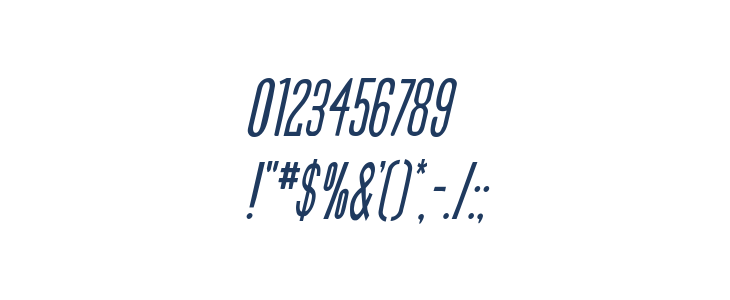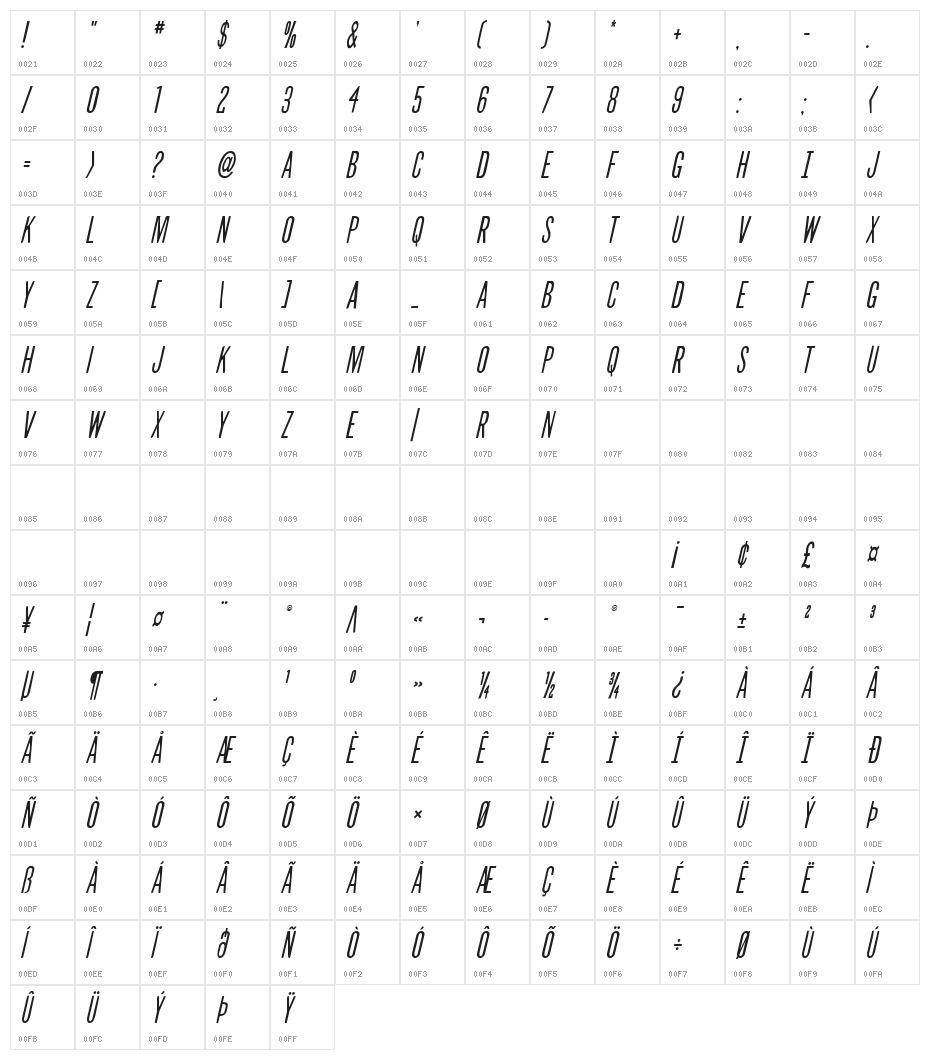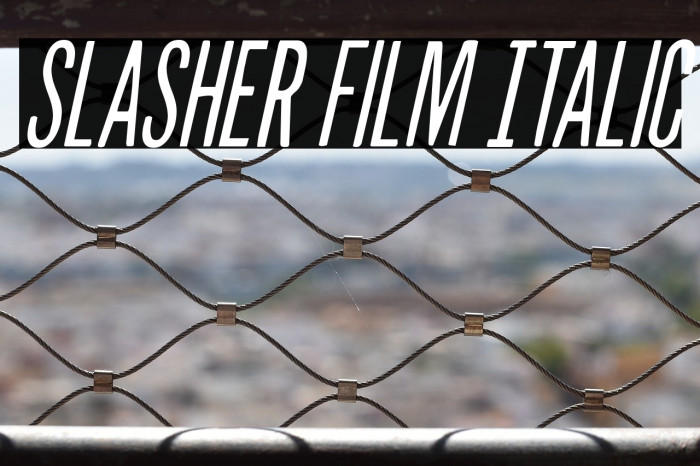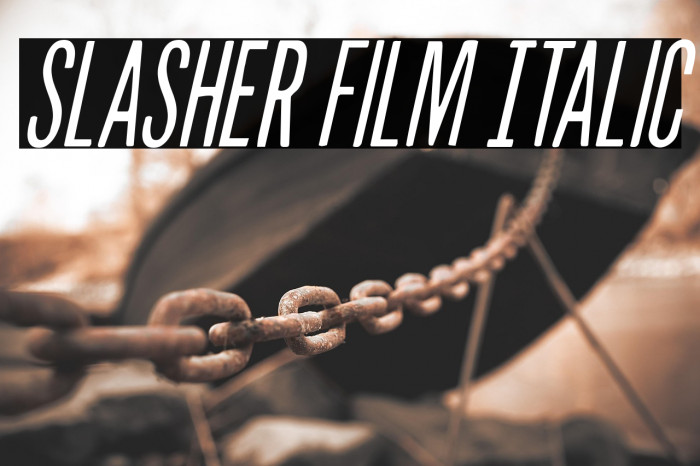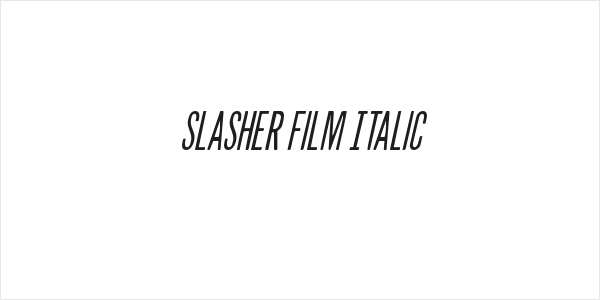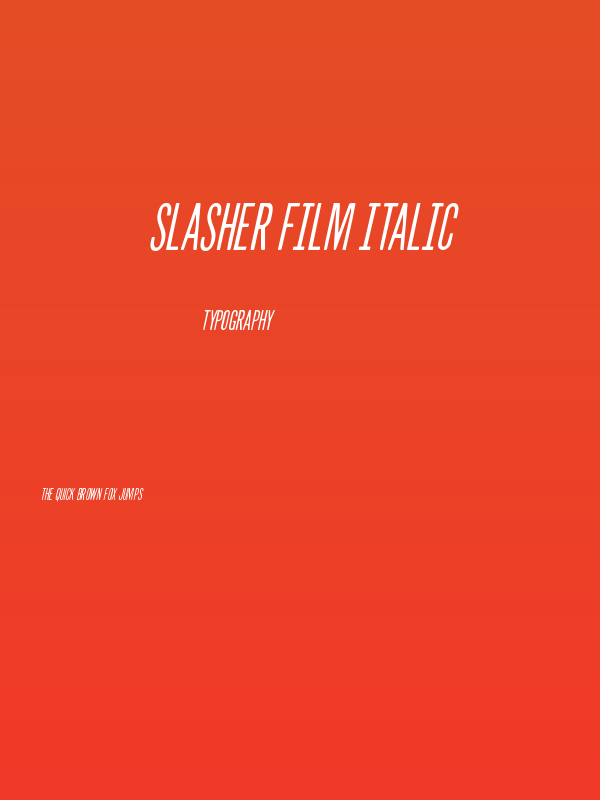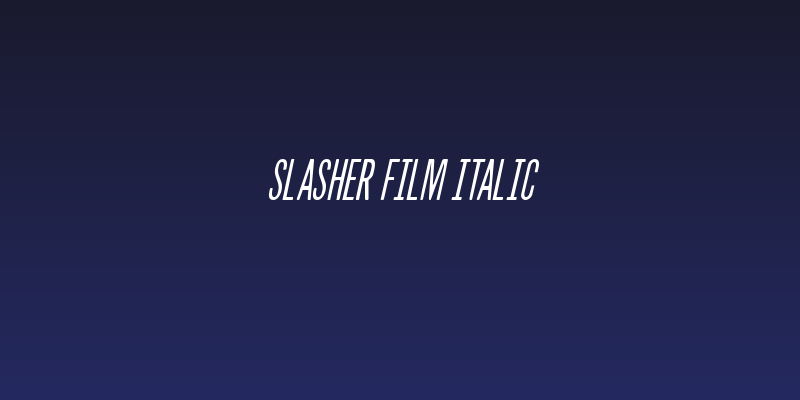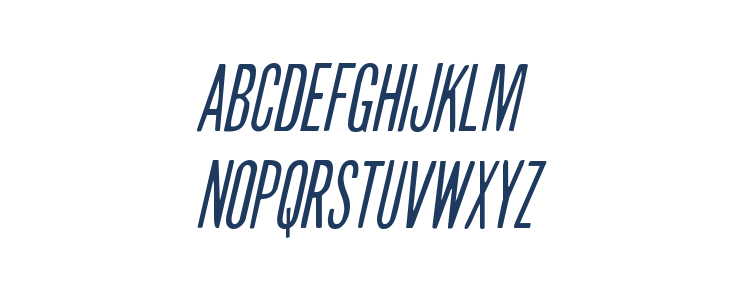
Slasher Film Italic Font
Slasher Film Italic Description
This font features a dynamic and edgy style with a distinct italic slant, giving it a sense of motion and urgency. The characters are elongated and narrow, contributing to a sleek and modern appearance. The strokes are consistent in thickness, providing a uniform look across all characters. The font includes a full set of uppercase and lowercase letters, numbers, and a variety of special characters, making it versatile for different design needs. Its sharp angles and clean lines make it suitable for projects that require a bold and impactful statement.
| Proposed Projects | Ideal for movie posters, album covers, branding for edgy products, or any design needing a bold, modern touch. |